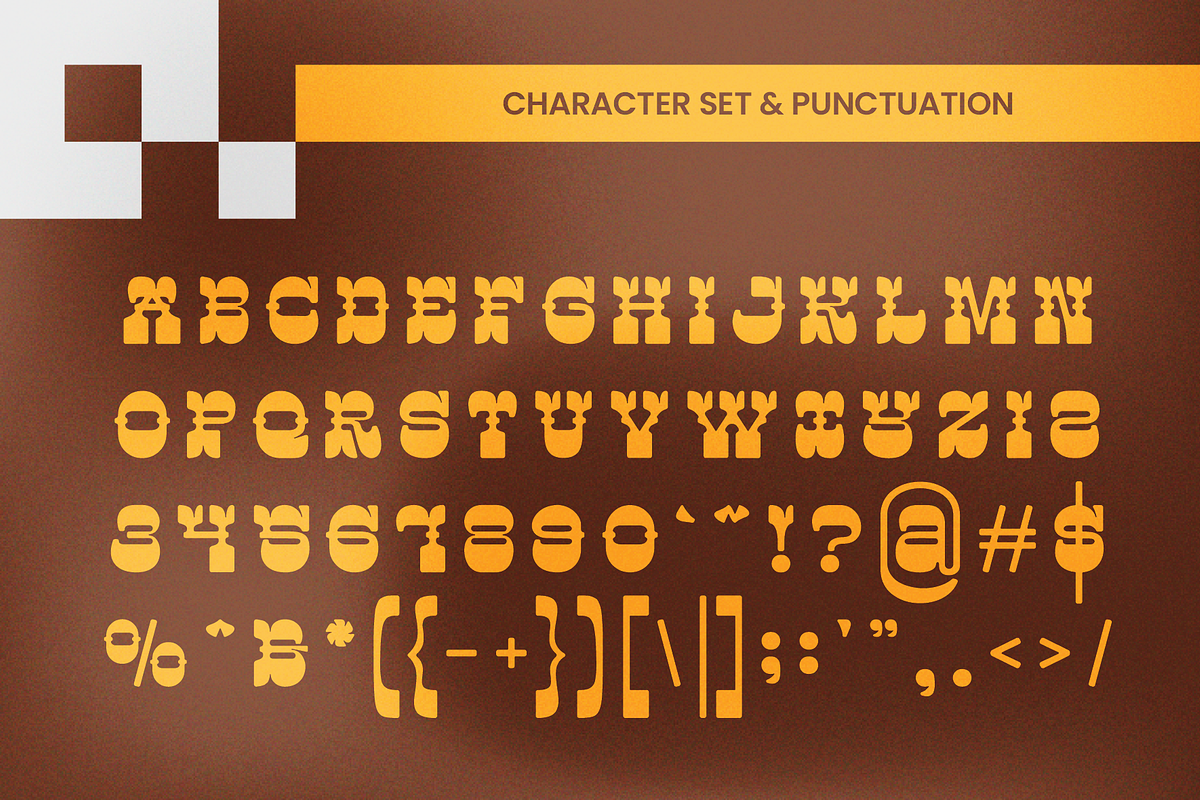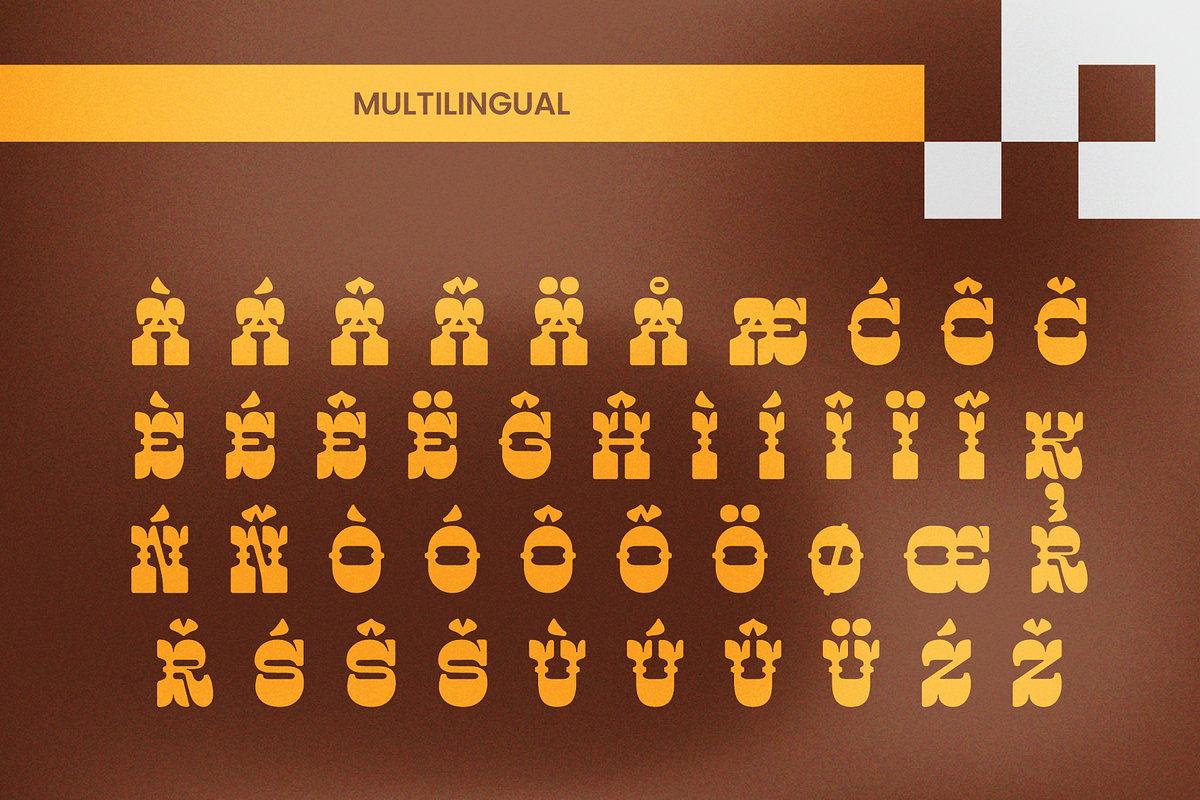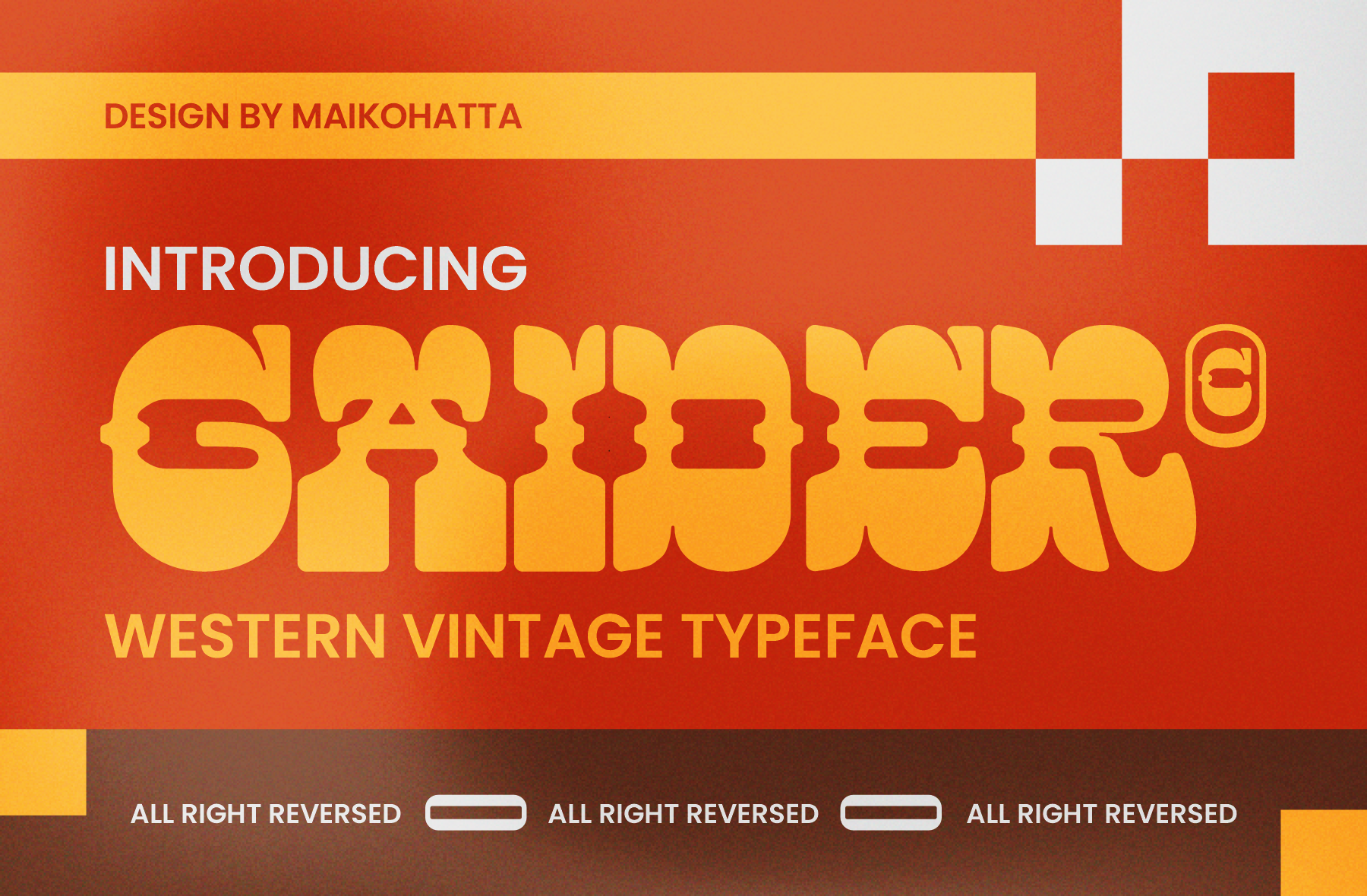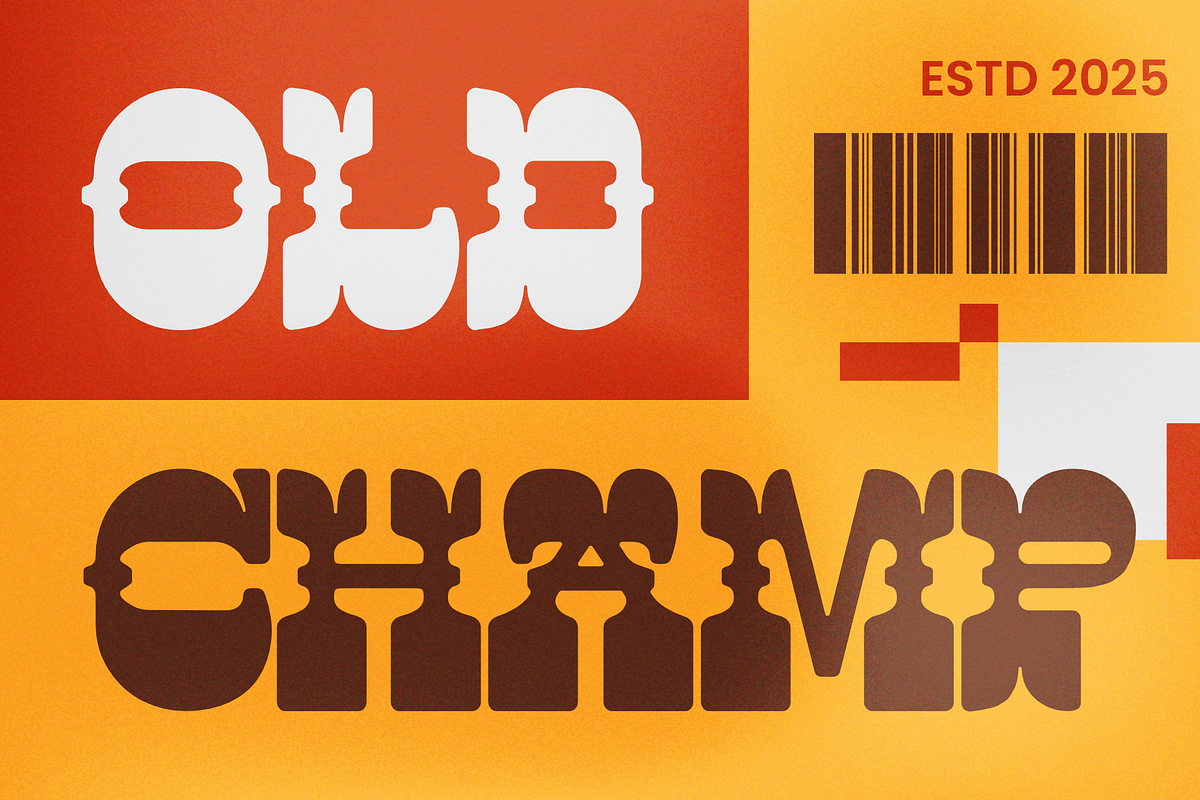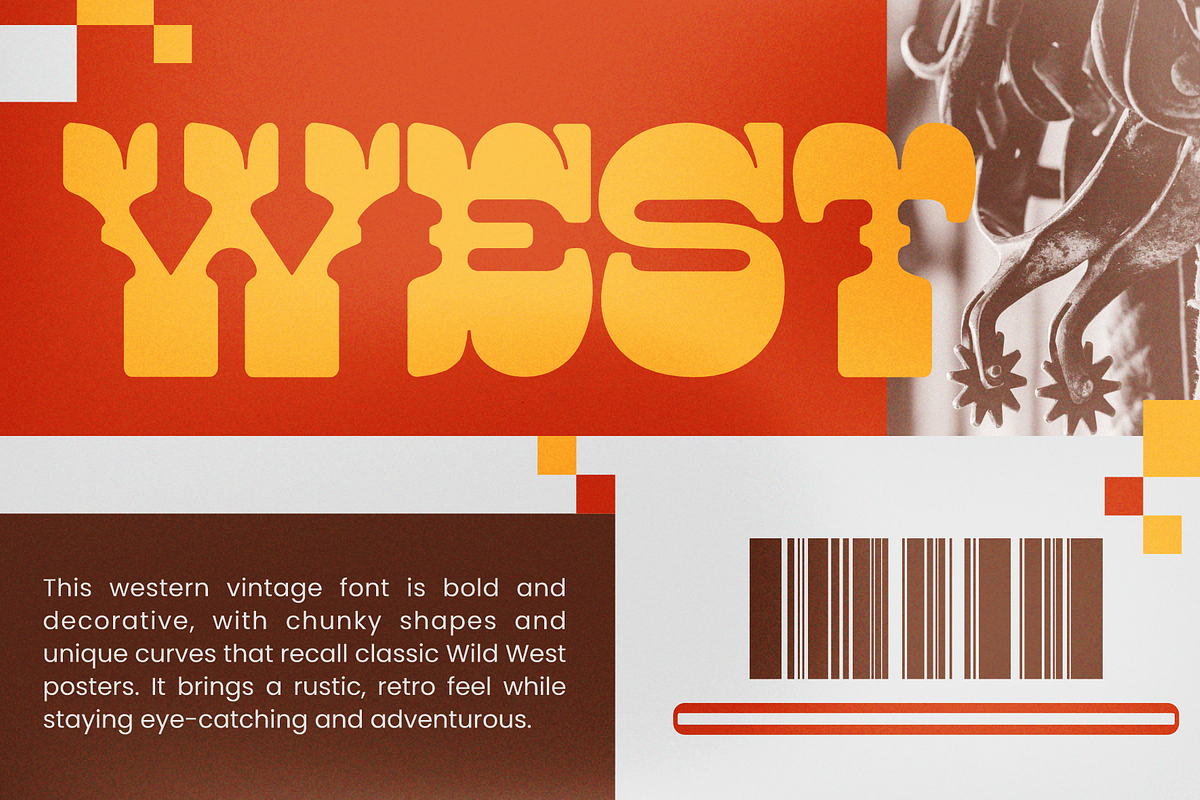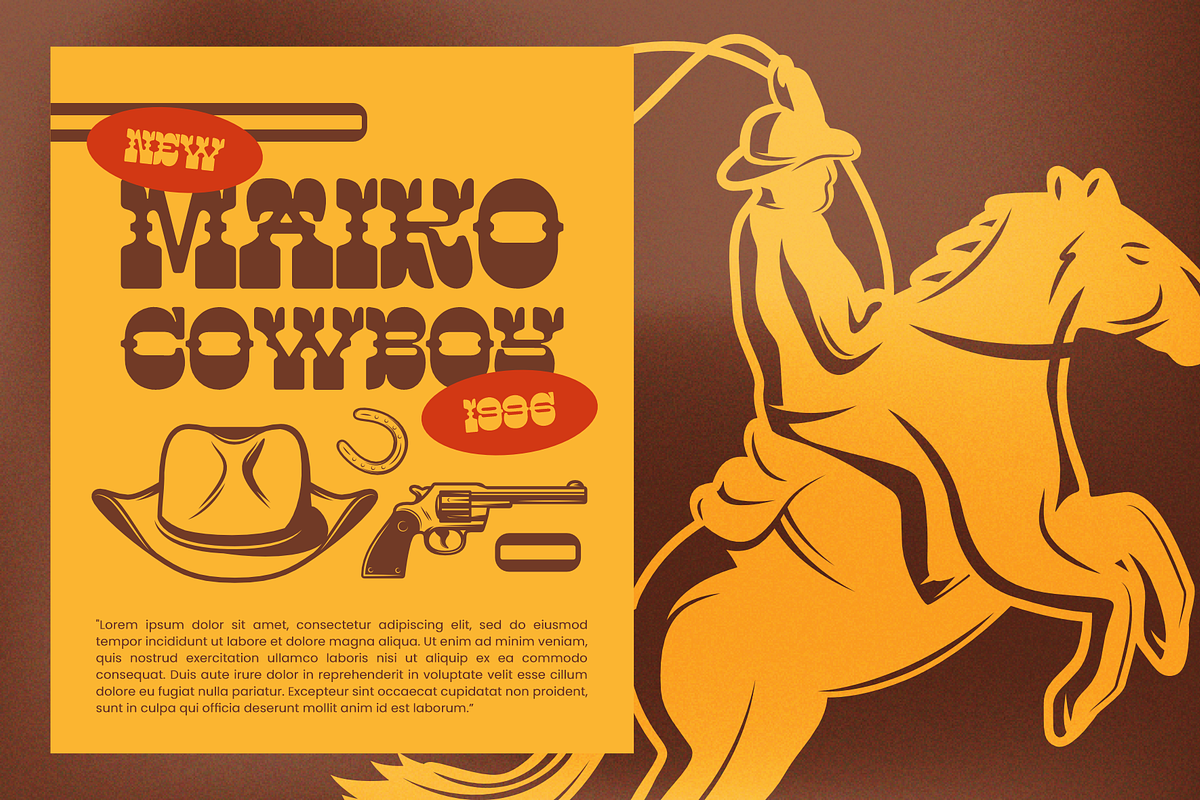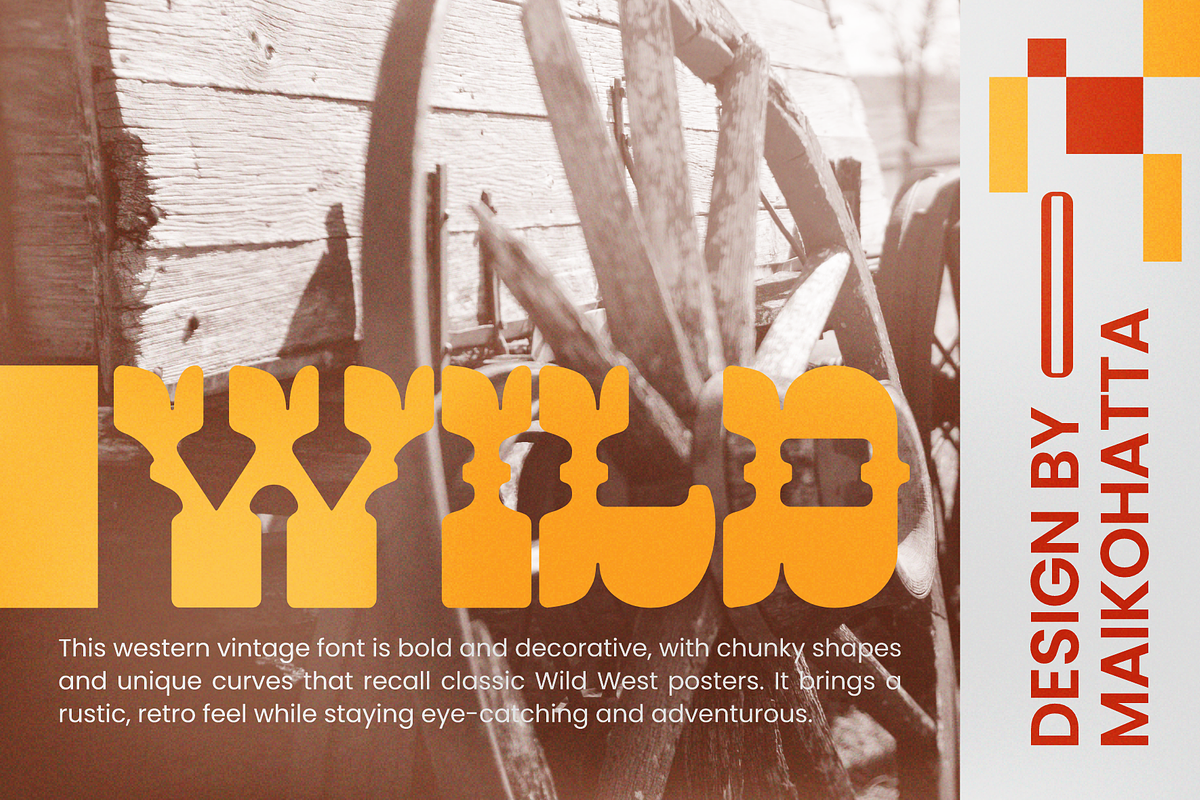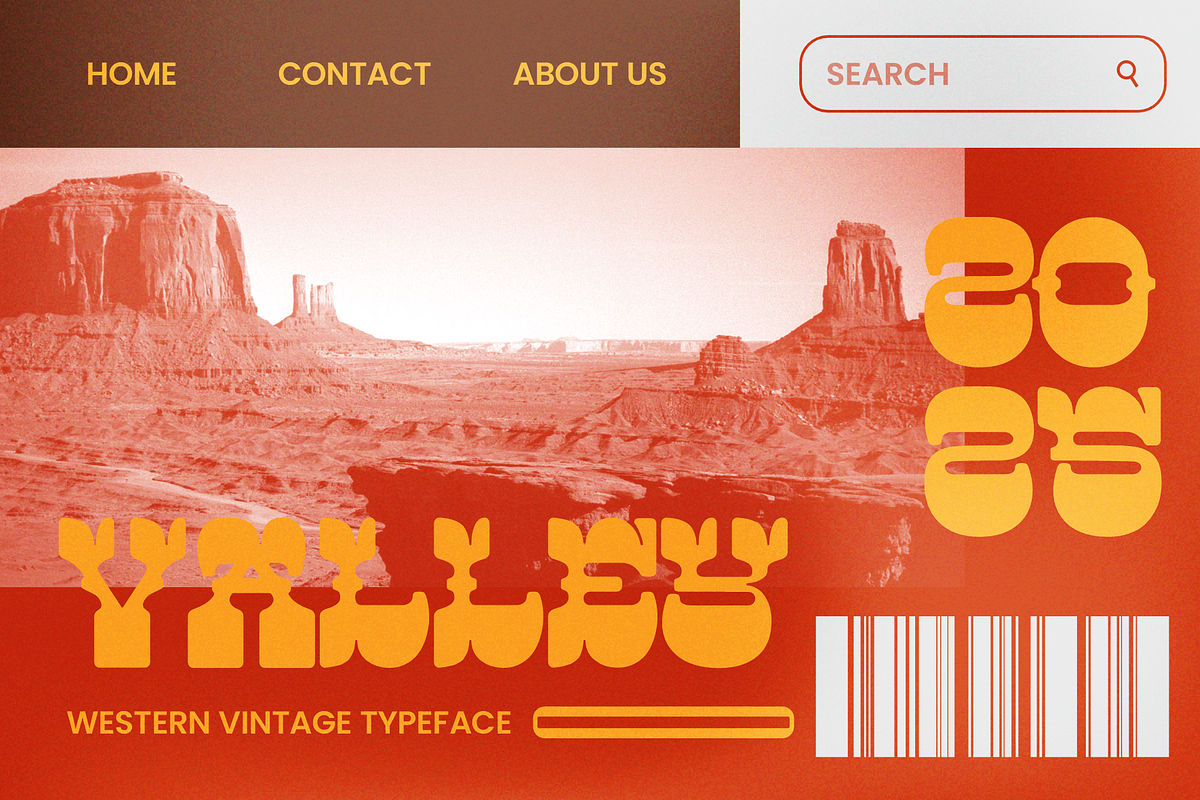
Gaider - Western Vintage Typeface
Gaider is a bold and unique display font inspired by vintage western styles with a modern twist. Its thick curves, playful cuts, and retro vibe make it a perfect choice for standout designs. This typeface brings a nostalgic yet fresh feel, ideal for projects that need a strong and eye-catching personality.
Perfect for posters, logos, album covers, headlines, branding, packaging, and retro-themed designs, Gaider ensures your message stands out with a strong western character and stylish vintage flair.